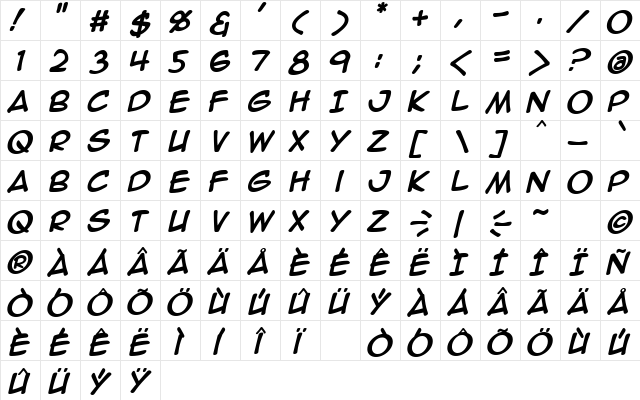
Anime Ace 2.0 BB Bold
| Foundry | Nate Piekos. Blambot.com |
| Designer | Nate Piekos |
Design Context for Anime Ace 2.0 BB Typeface
Anime Ace 2.0 BB takes a measured approach to typography — its balanced proportions and neutral character make it a reliable workhorse for both digital and print work. The heavy weight commands attention and anchors typographic hierarchies.